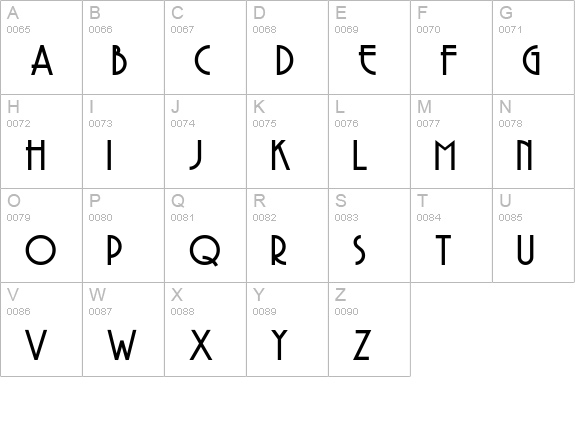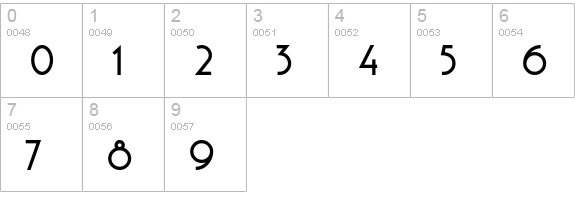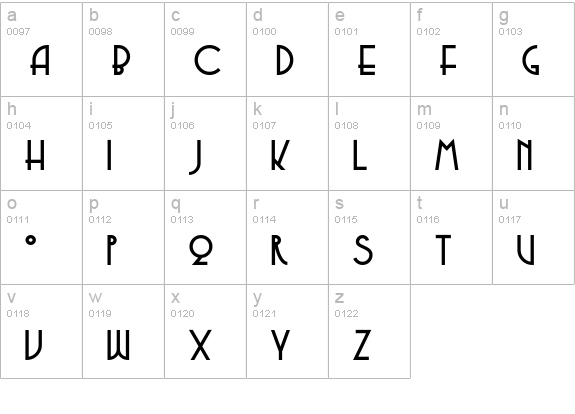
Copasetic Font Details
Introducing Copasetic font, a modern and stylish typeface that exudes sophistication and elegance. With its clean lines and smooth curves, Copasetic is perfect for a wide range of design projects, from branding to packaging to editorial design. This versatile font features a sleek and contemporary look that will elevate any design layout. Whether you're creating a logo for a high-end fashion brand or designing a sleek website, Copasetic font is sure to make a lasting impression. Best of all, Copasetic font is completely free to download at FontsMarket.com. So go ahead and give your projects that extra touch of class with this stunning typeface. Download Copasetic font today and take your designs to the next level.